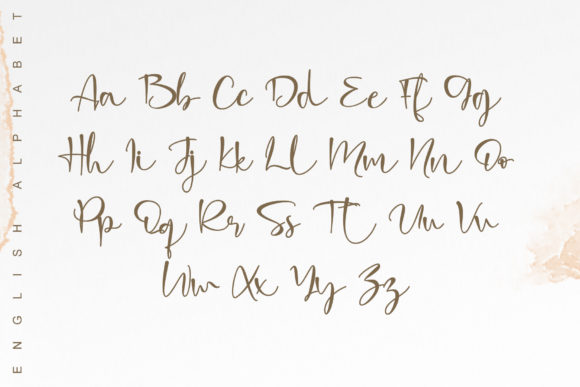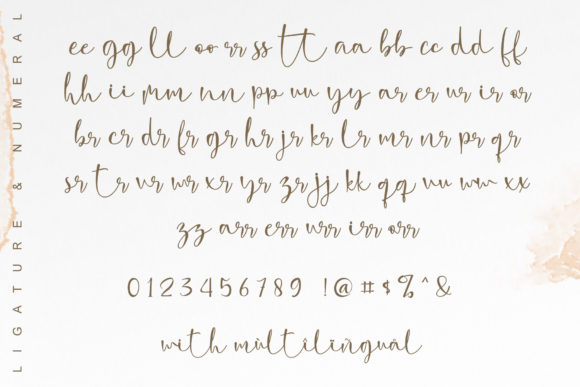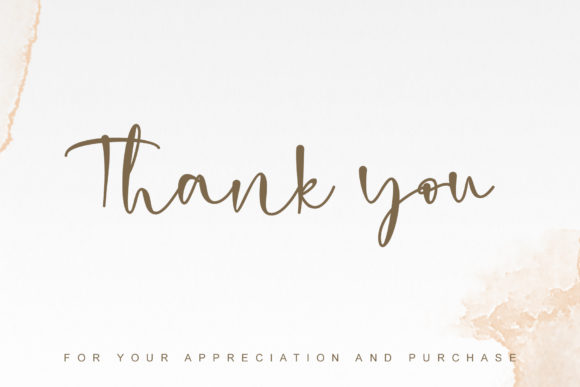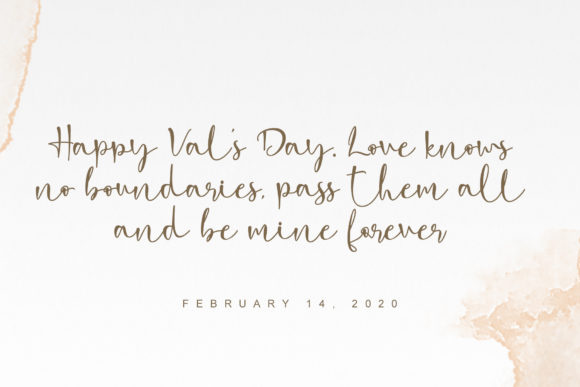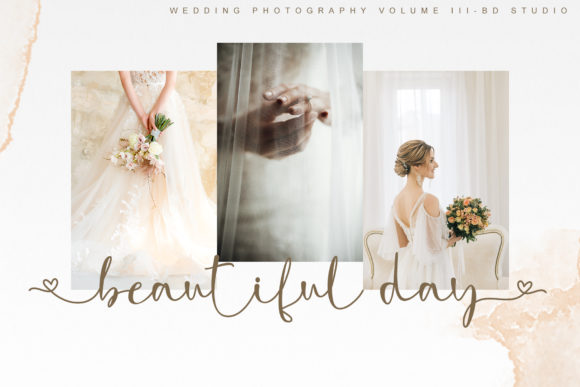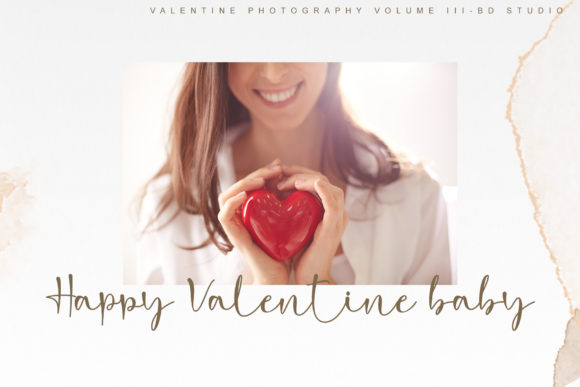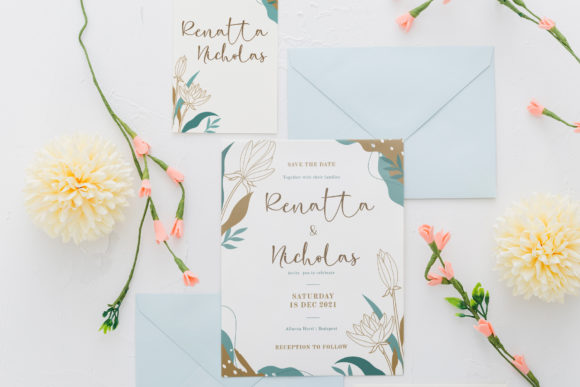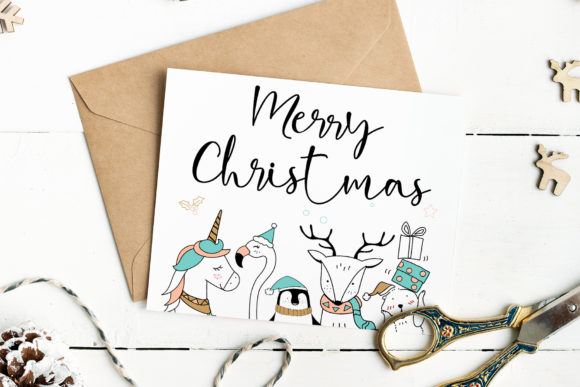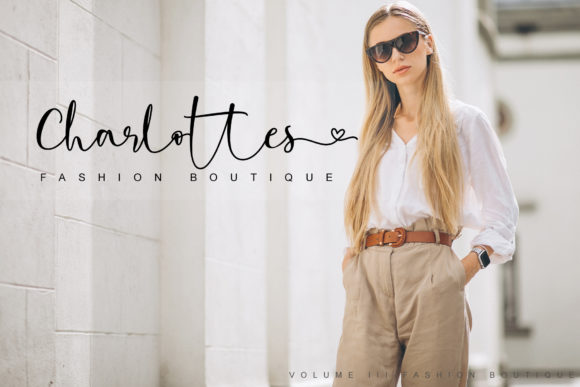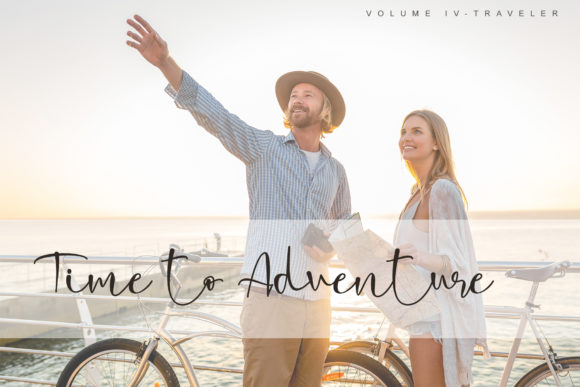
Clarissa Font
About Clarissa Font
Clarissa feels equally charming and elegant. It looks stunning on wedding invitations, thank you cards, quotes, greeting cards, logos, business cards and every other design which needs a handwritten touch.